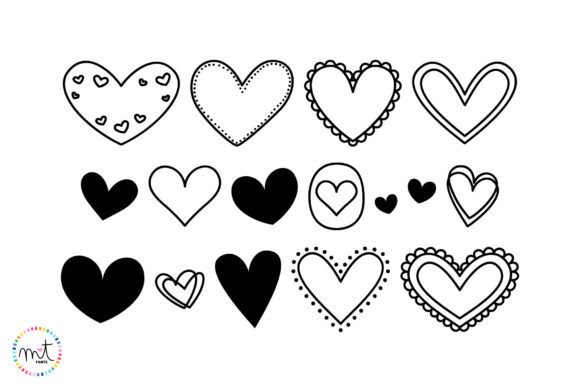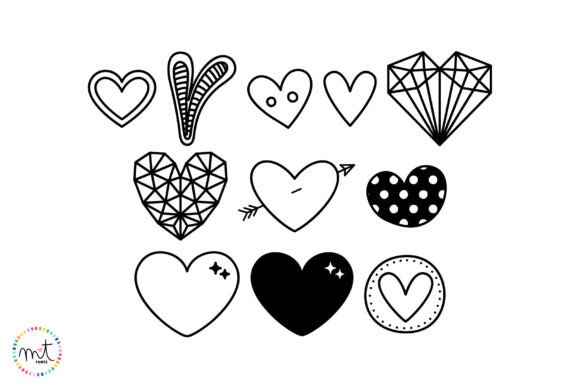
Heart Doodle 3 Font – Free Download
Introduction to Heart Doodle 3 Font
Heart Doodle 3 is the perfect dingbat font for Valentine’s Day, weddings, or anything love-related.
This cute typeface will help you tackle romantic projects in an easy and fun manner with it’s 26 charming doodled characters .
Key Features of Heart Doodle 3 Font
Why Choose Heart Doodle 3 Font?